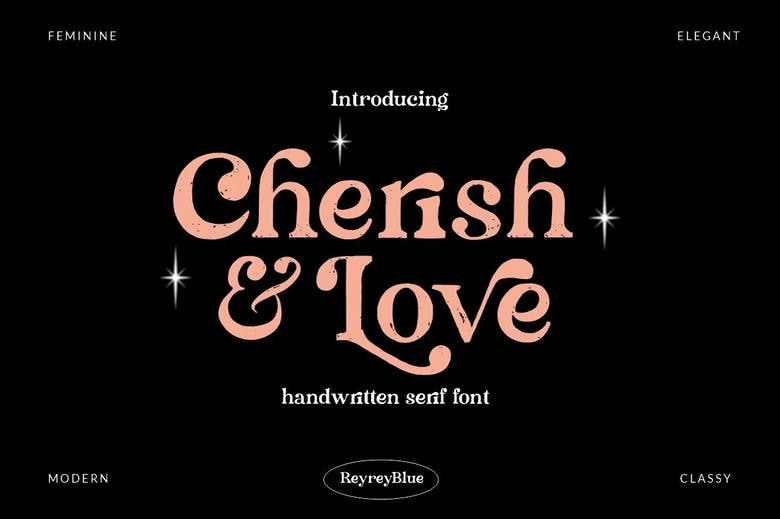
Cherish & Love Font
Cherish & Love is a trendy and stylish serif font. It is PUA encoded which means you can access all of the glyphs and swashes with ease! Fall in love with its incredibly versatile style and use it to create spectacular designs!
Cherish & Love Serif Font